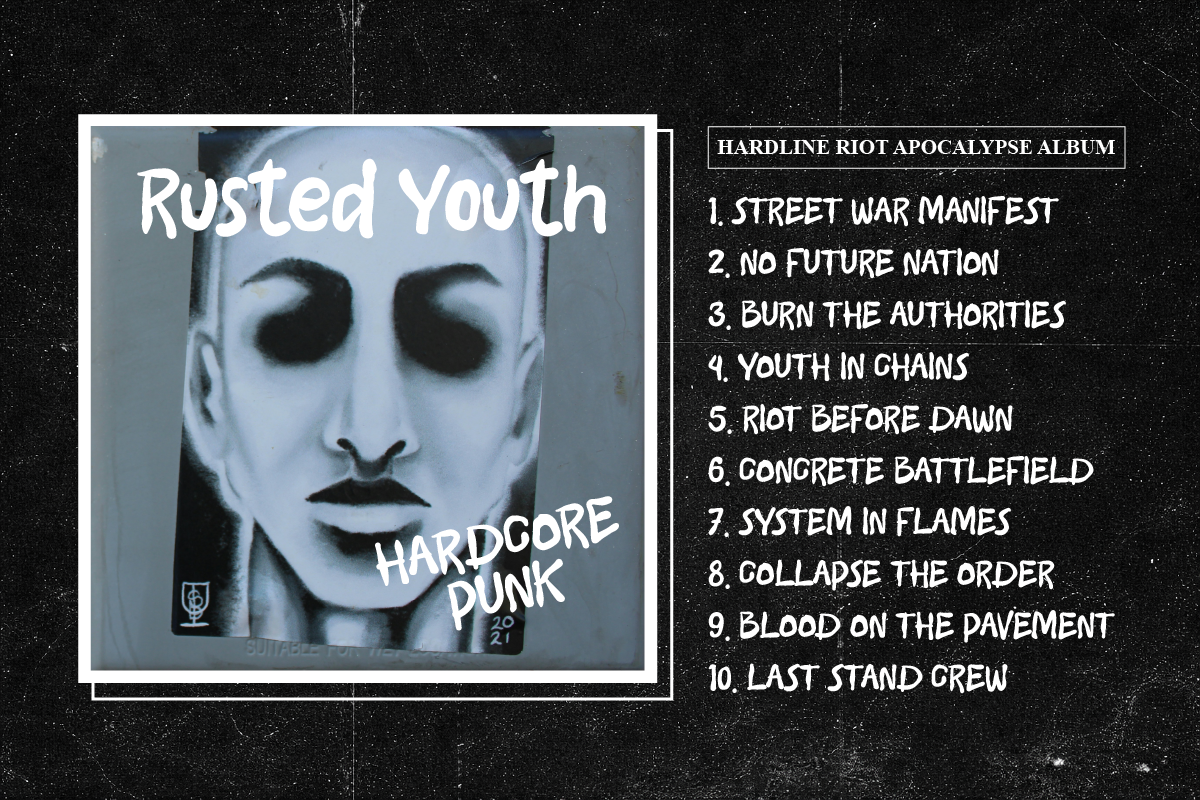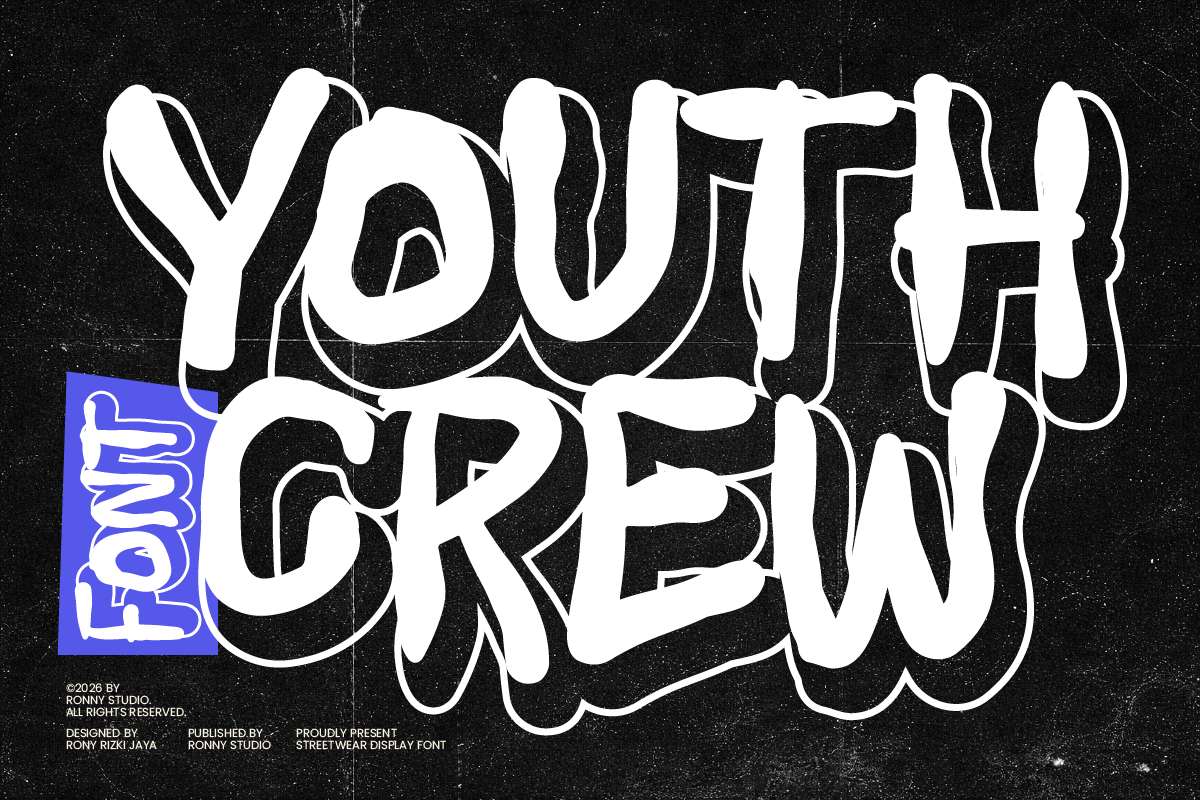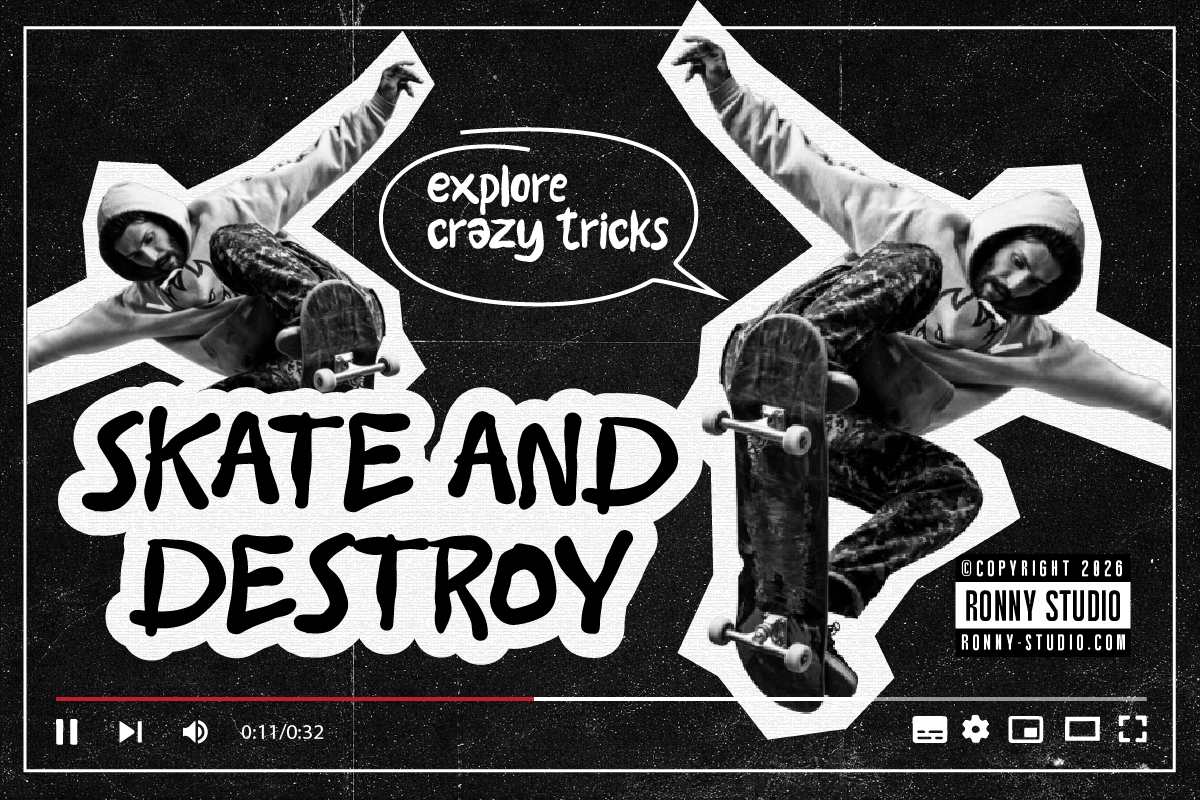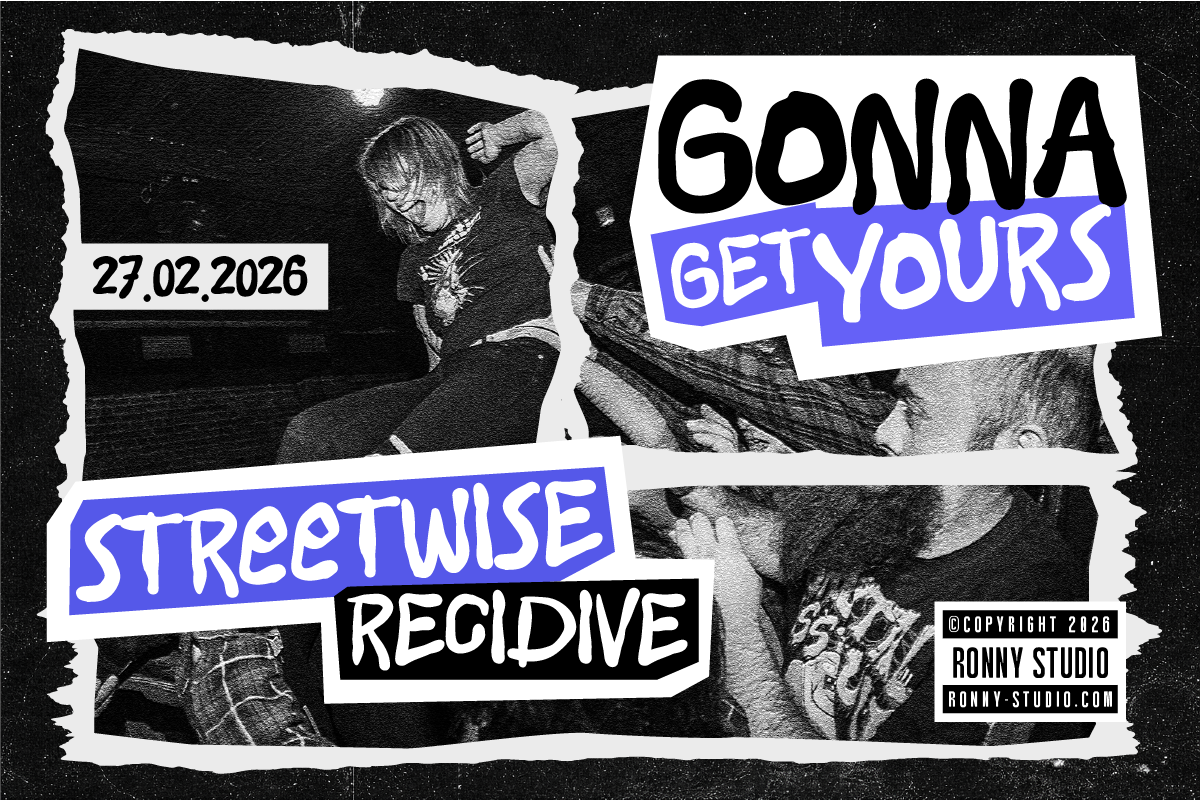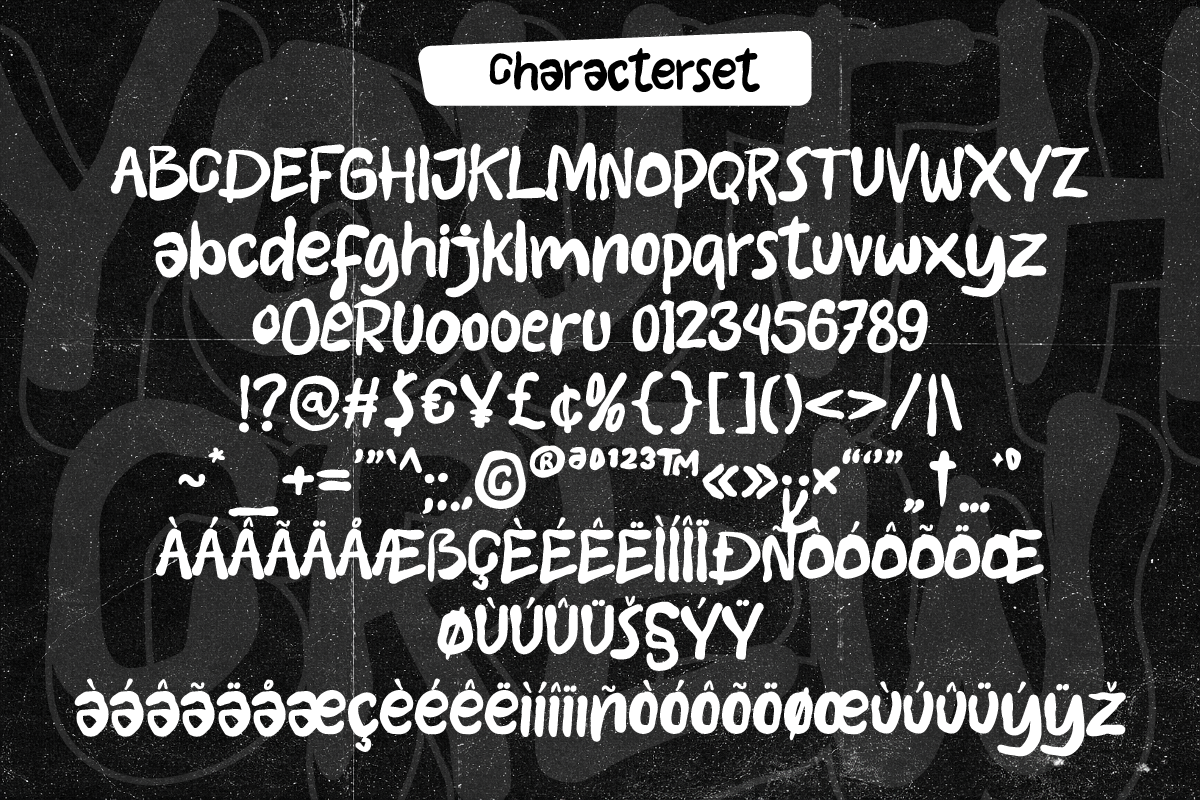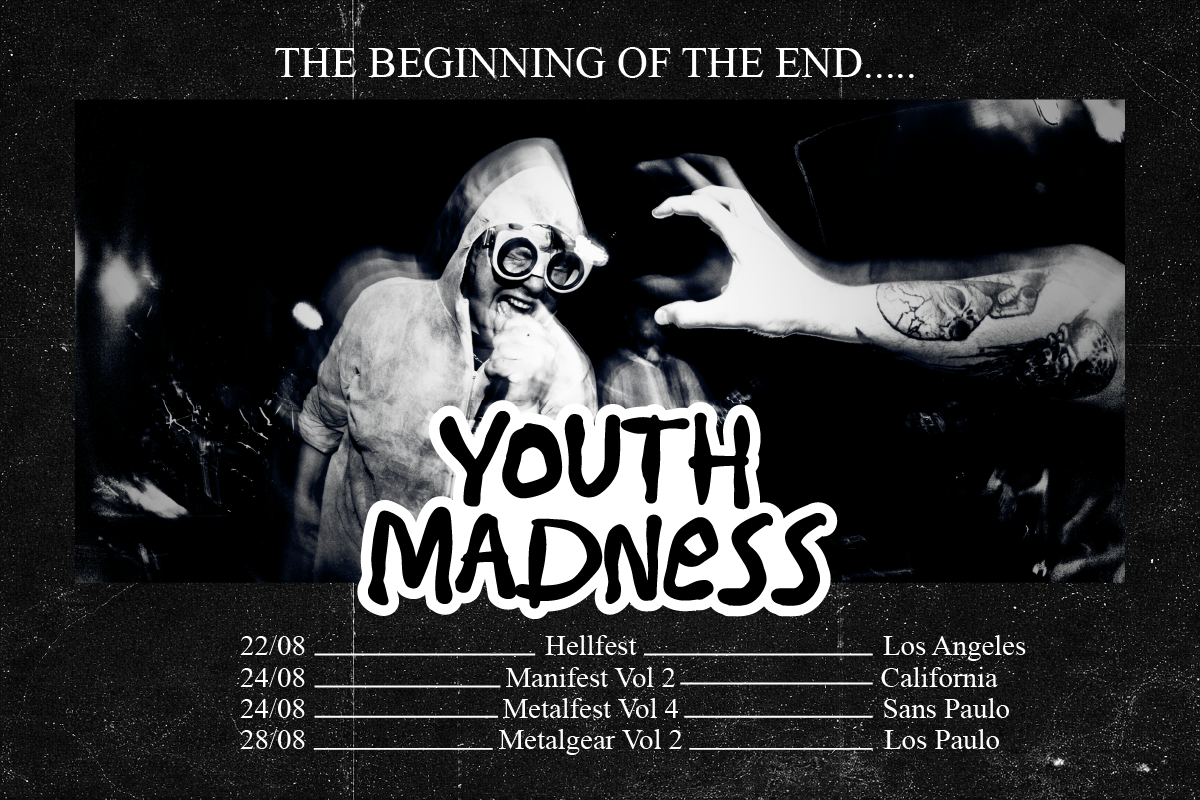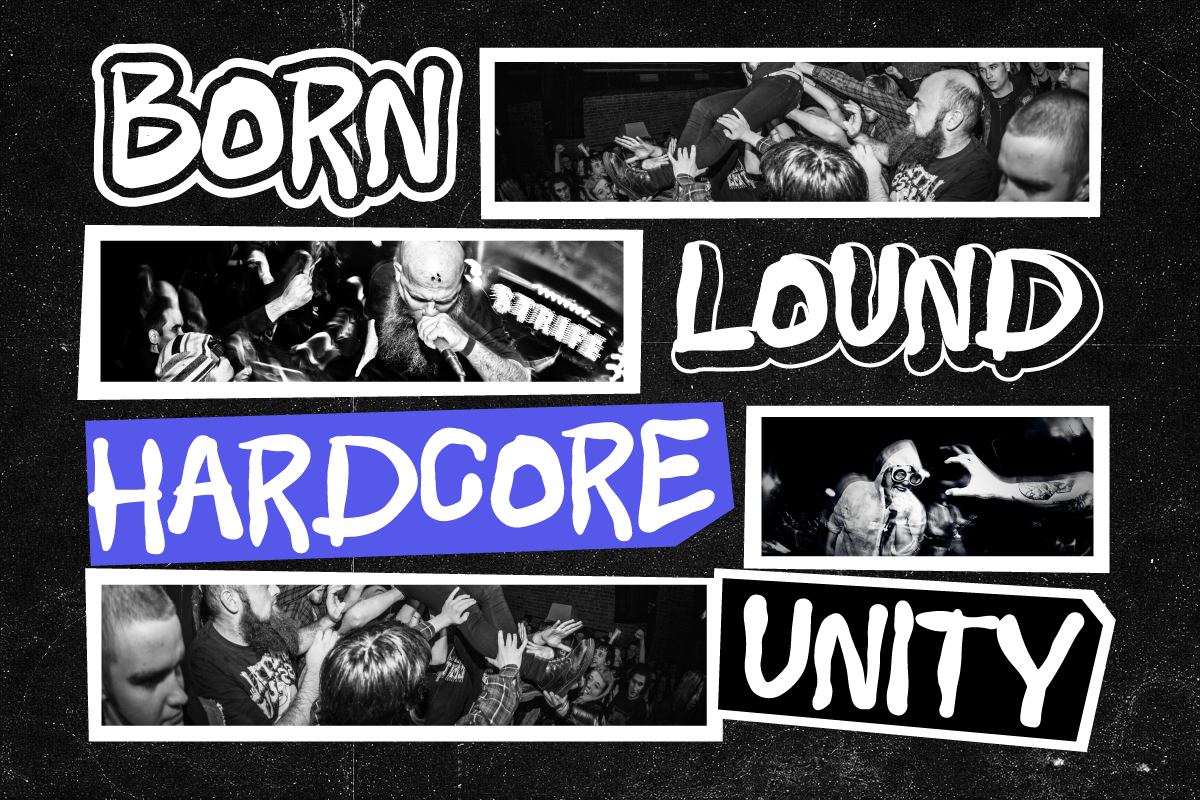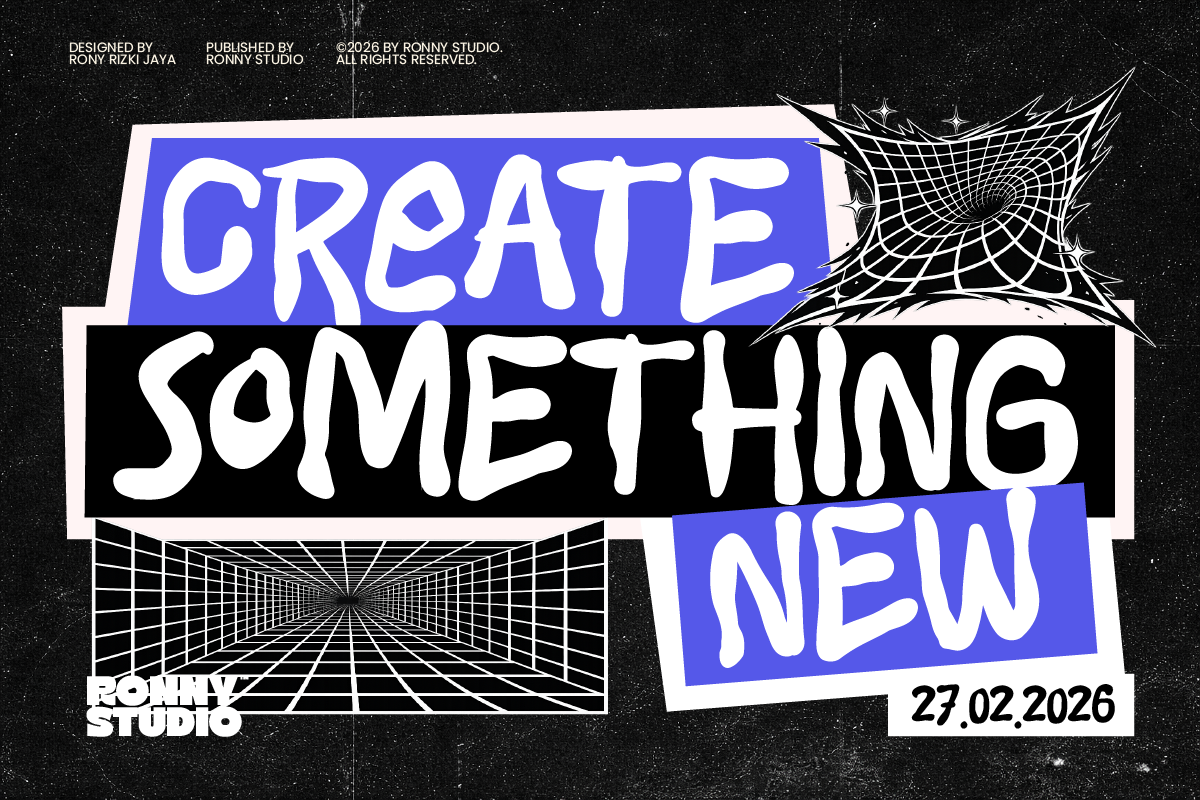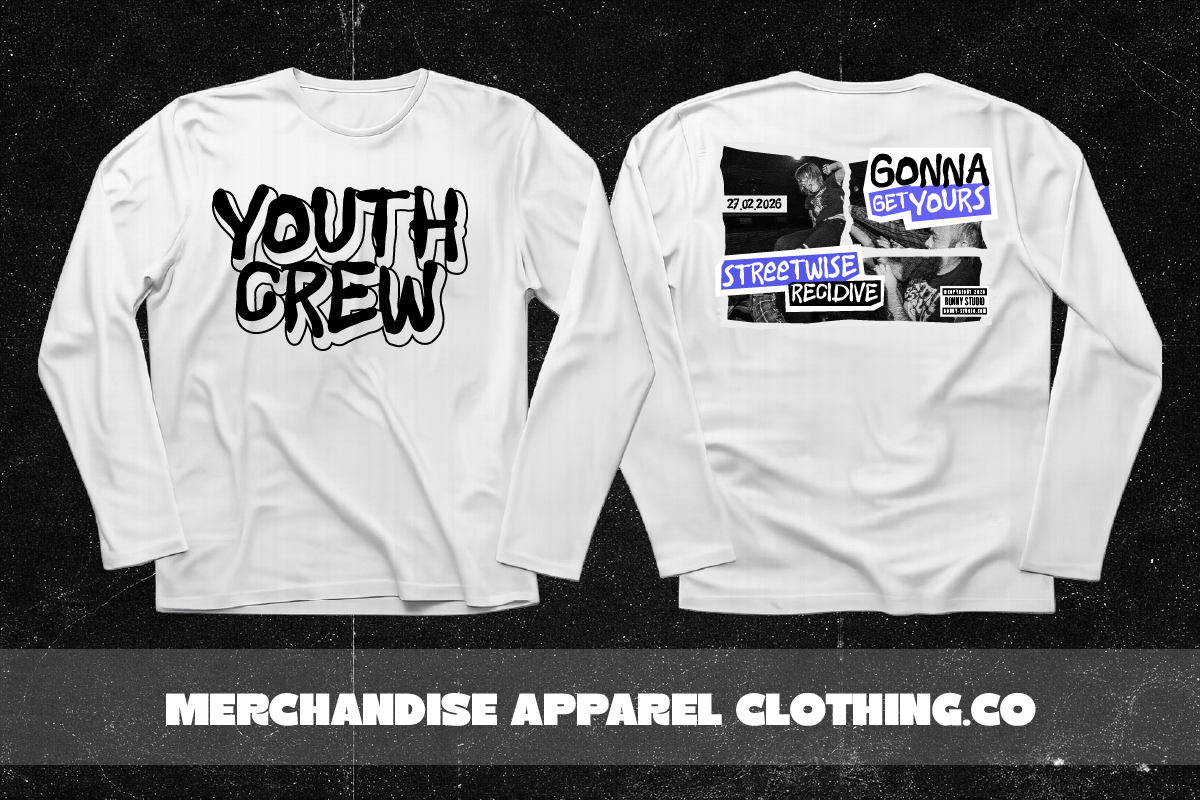
Youth Crew – Graffiti Street Font
🎨 Introducing: Youth Crew – Graffiti Street Font
Bring raw underground energy into your designs with Youth Crew, a bold graffiti street display font inspired by skate culture, hip-hop aesthetics, DIY zines, and rebellious youth spirit. Every letter is hand-drawn with expressive strokes and strong attitude, giving your designs an authentic urban street style that instantly grabs attention.
Designed for creators who want their typography to feel loud, energetic, and unapologetically bold, Youth Crew delivers the perfect balance between graffiti culture and modern streetwear design.
Whether you're working on streetwear branding, music artwork, poster design, or bold headline typography, this graffiti street font adds a powerful visual impact that stands out in any project.
✨ Font Features
• Hand-drawn graffiti street style • Uppercase & lowercase characters • Numbers, punctuation & symbols • Multilingual support • OTF, TTF & WOFF formats • Easy to use in design software
🔥 Perfect For
• Streetwear & clothing brand logos • Music posters & gig flyers • Skateboard graphics • Hip-hop & urban branding • Social media graphics • Editorial headlines • Merchandise design • Bold creative projects
If you're looking for a graffiti street font that captures the spirit of underground culture, Youth Crew is the perfect choice to bring raw urban energy into your typography.